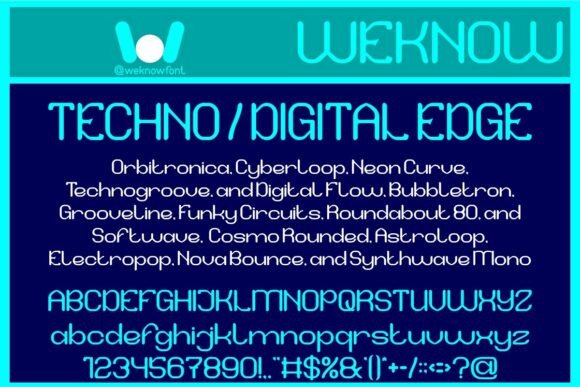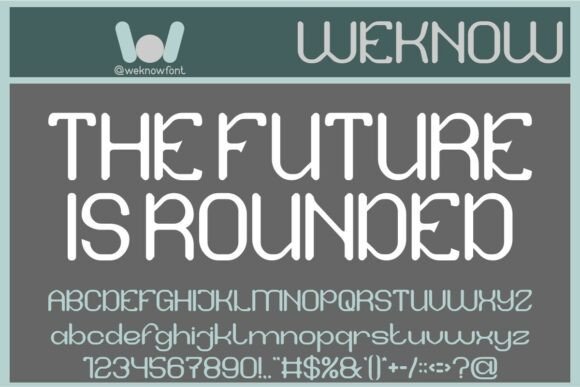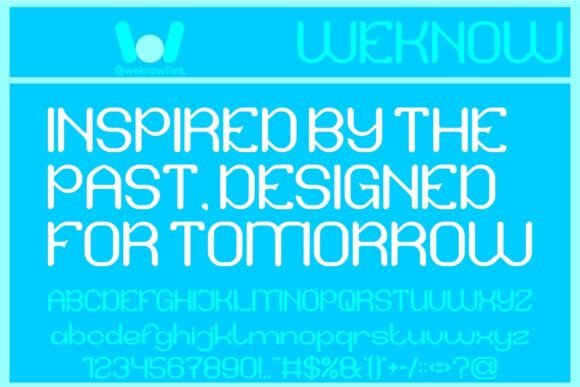
Introduction to Neo Logic Font
Neo Logic typeface is a confluence of the techno-scifi genre and groovy geometrics that pays homage to retro aesthetics.
This versatile display font can transform and energize a seemingly ordinary logo or logotype into something extraordinary Its potential blooms in the corporate and brand identity space, seamlessly becoming a part of your identity.